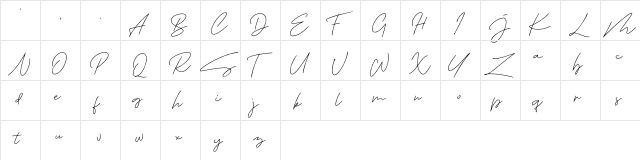
Tropical Summer Signature Regular
| Designer | Bluestudio / Winarno |
Design Context for Tropical Summer Signature Typeface
Tropical Summer Signature is a composed and adaptable typeface that performs quietly and consistently across a wide range of design contexts.